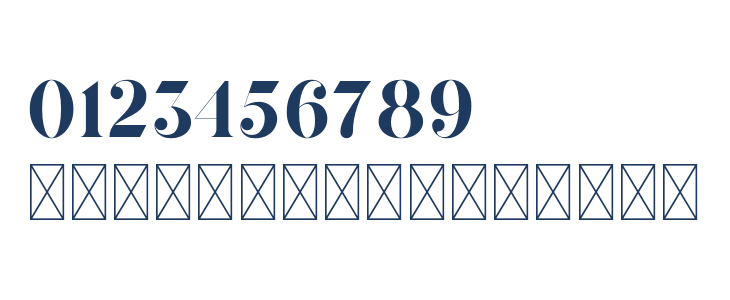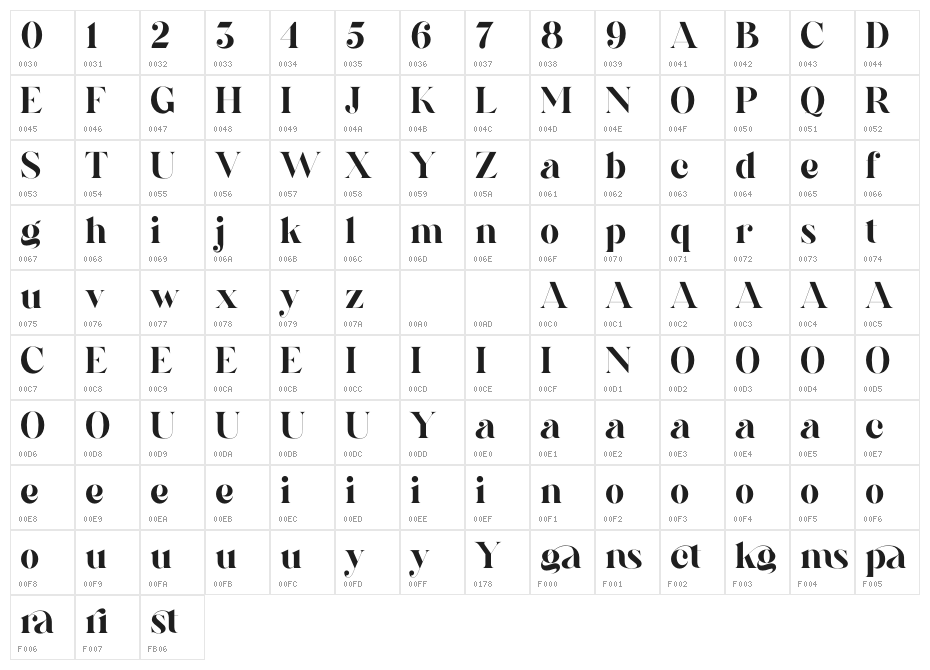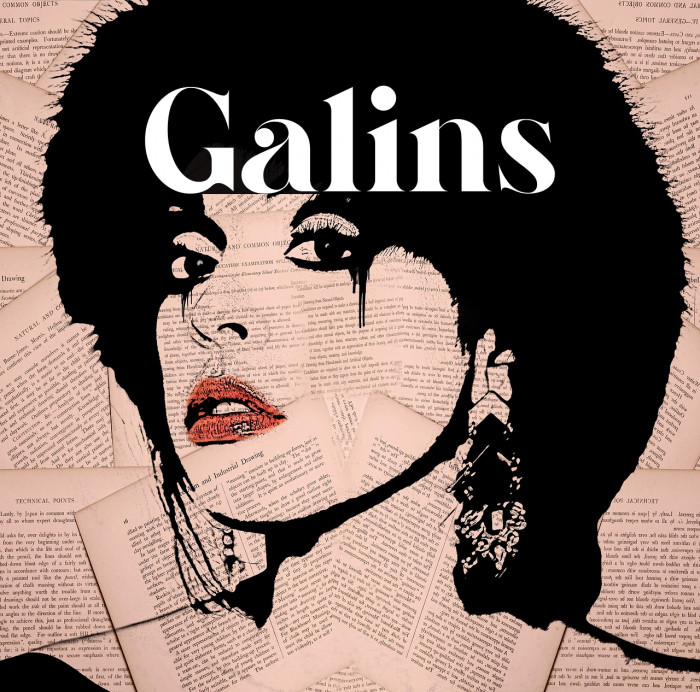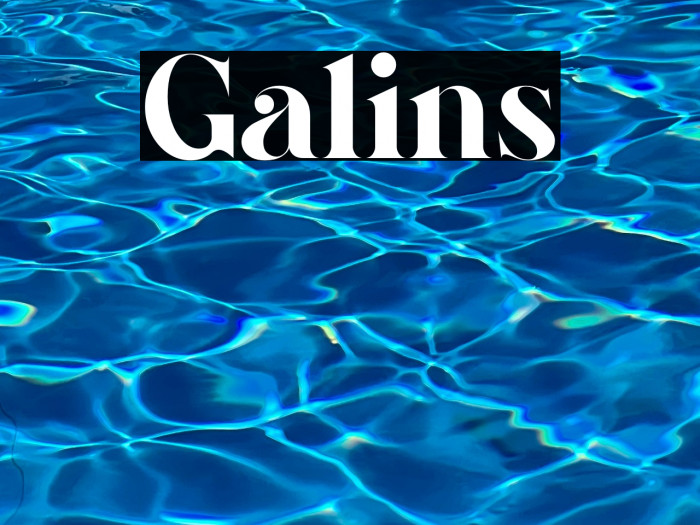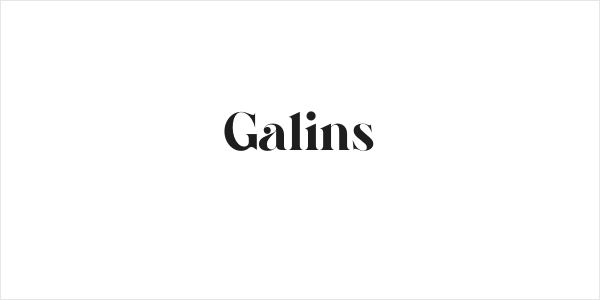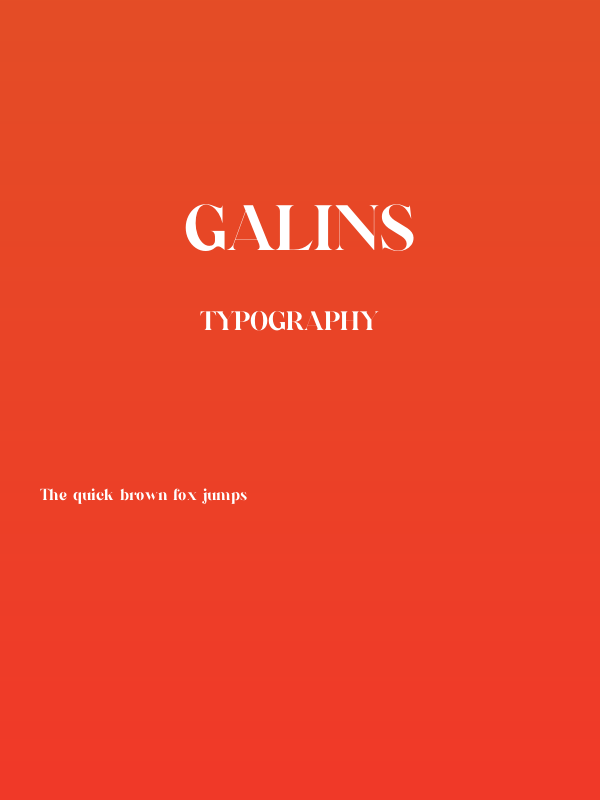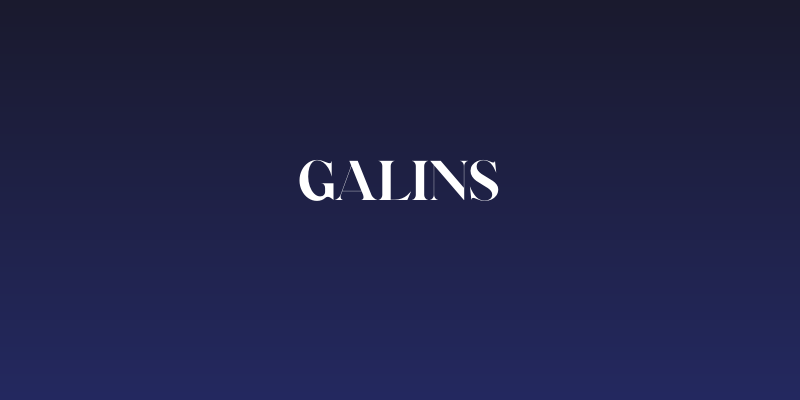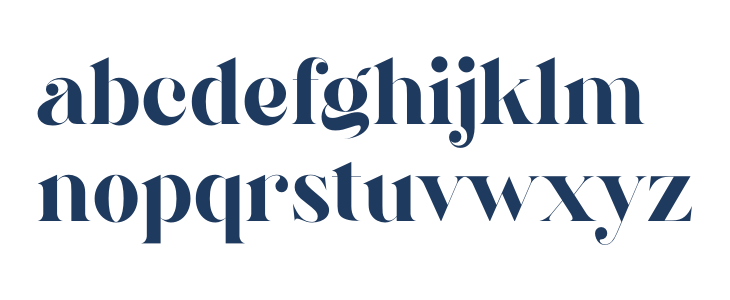
Galins Font
Galins Description
This font features a striking and elegant design with high contrast between thick and thin strokes, giving it a sophisticated and modern appearance. The uppercase letters are bold and commanding, with sharp serifs that add a touch of classic elegance. The lowercase letters maintain a consistent style, with smooth curves and a balanced structure that enhances readability. The numerals are distinct and well-proportioned, ensuring clarity in numerical data. This font is versatile, suitable for both digital and print media, and can be used to create impactful headlines or stylish branding materials.